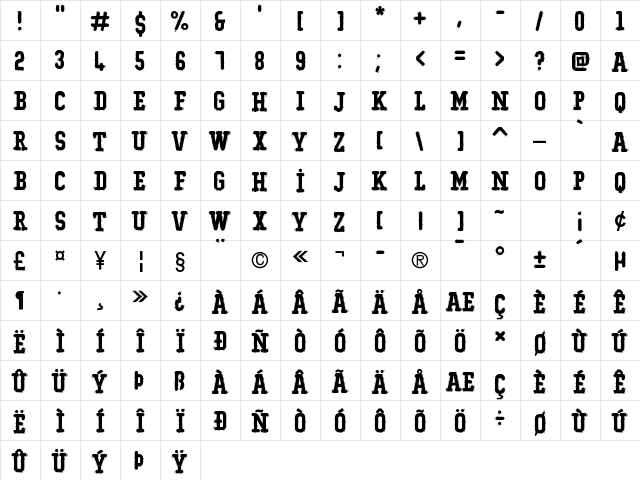
Typo College Rocking Rounded Demo Regular
Design Context for Typo College Rocking Rounded Demo Typeface
Typo College Rocking Rounded Demo has the bold swagger of sports branding: strong, assertive letterforms designed to dominate headlines and jerseys alike.
Built for sports team identities, athletic apparel, event posters, and high-energy promotional material.
Font Pairing: Use alongside a condensed or geometric sans for supporting copy — keep the pairing bold, functional, and free of ornament.
Pro Tip: Typo College Rocking Rounded Demo thrives on contrast — try it large, bold, and tight against a clean background for maximum visual impact.